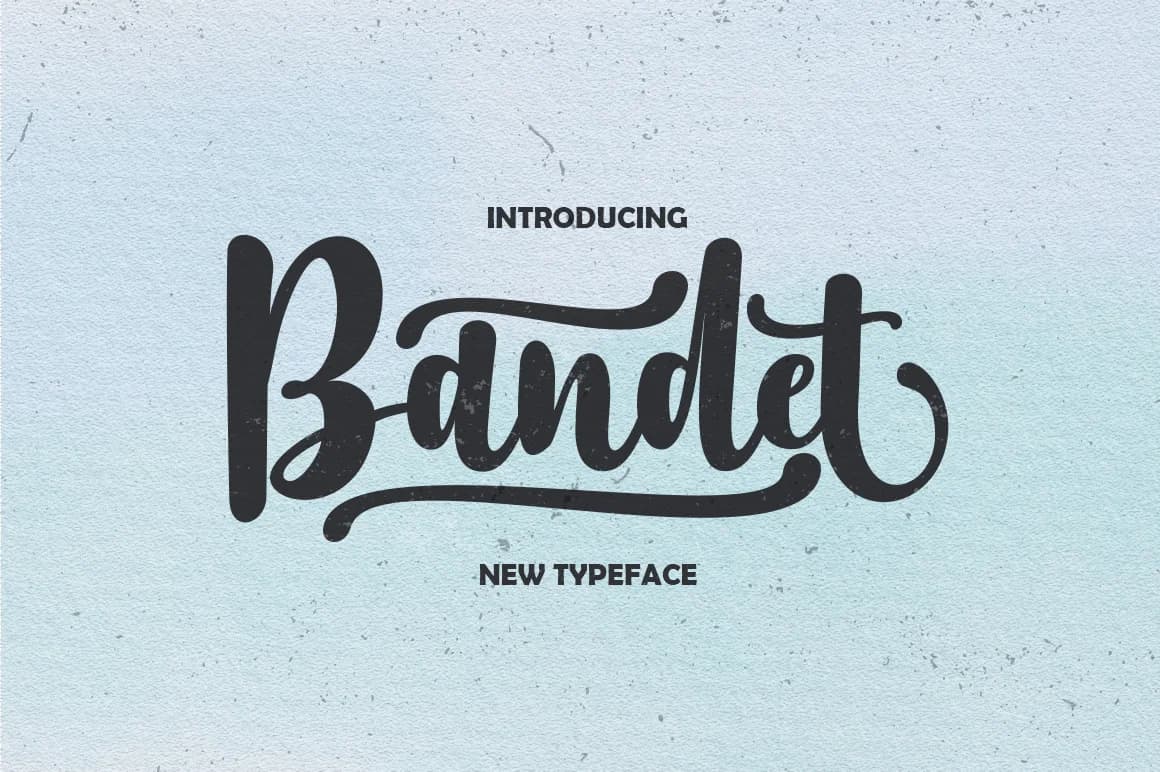
Bandet by varianskills is a brush-based script duo that brings expressive, hand-drawn character to digital and print projects. The font collection includes two complementary weights, allowing you to layer and combine styles for added visual interest and hierarchy in your compositions. With its fluid letterforms and organic texture, Bandet captures the authenticity of natural brushwork while maintaining reliable legibility across different applications and sizes.
This font performs exceptionally well for wedding invitation suites, where its handcrafted aesthetic adds an intimate, personal touch to formal stationery. It's equally suited for boutique product packaging, greeting card designs, and DIY craft signage that benefit from a warm, approachable voice. The brush-based style translates beautifully to social media graphics and personal branding projects where authentic, hand-lettered aesthetics command attention and foster genuine connection with your audience.
Bandet Font is a script font that shines as a display or heading face. Pair it with a clean sans-serif or serif font for body text β the contrast creates a clear hierarchy while the two styles stay balanced and easy to read.